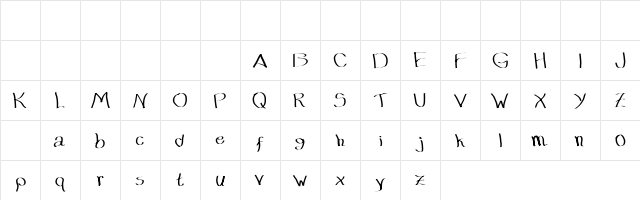
Timi Maws Maws
| Designer | DuranGo |
Design Context for Timi Maws Typeface
Timi Maws is a composed and adaptable typeface that performs quietly and consistently across a wide range of design contexts.